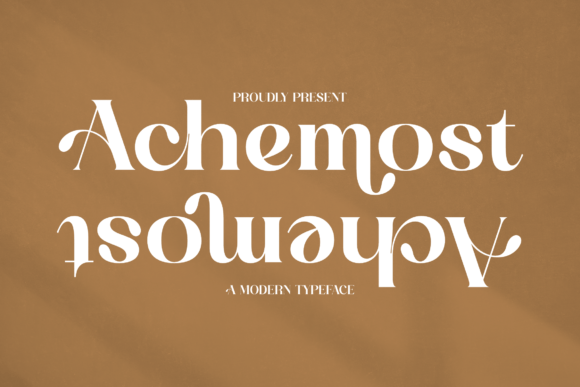
Introducing Achemost Font - The Culinary Canvas for Design Delights
Embark on a gastronomic journey of typographic artistry with Achemost Font, the serif typeface that tantalizes your senses and elevates your designs to epicurean heights. Each letterform is a delectable morsel, carefully crafted to evoke the essence of culinary excellence.
Feast your eyes on the modern and classic curves of Achemost, a font that dances across the page like a master chef orchestrating a symphony of flavors. Its elegant strokes and luxurious presence make it the perfect ingredient for any design recipe, adding a touch of sophistication and allure that leaves a lasting impression.
Indulge in the versatility of Achemost, a font that pairs effortlessly with diverse design elements, much like a skilled chef effortlessly blends ingredients to create a harmonious dish. Whether you're crafting an elegant logo, a captivating book or movie title, or a fashion-forward design, Achemost is the secret ingredient that adds a dash of visual delight.
With Achemost, your designs will exude an air of sophistication, just like a perfectly plated dish that awakens the senses. Its meticulously crafted characters are like culinary masterpieces, each stroke a brushstroke of brilliance, adding depth and texture to your creations.